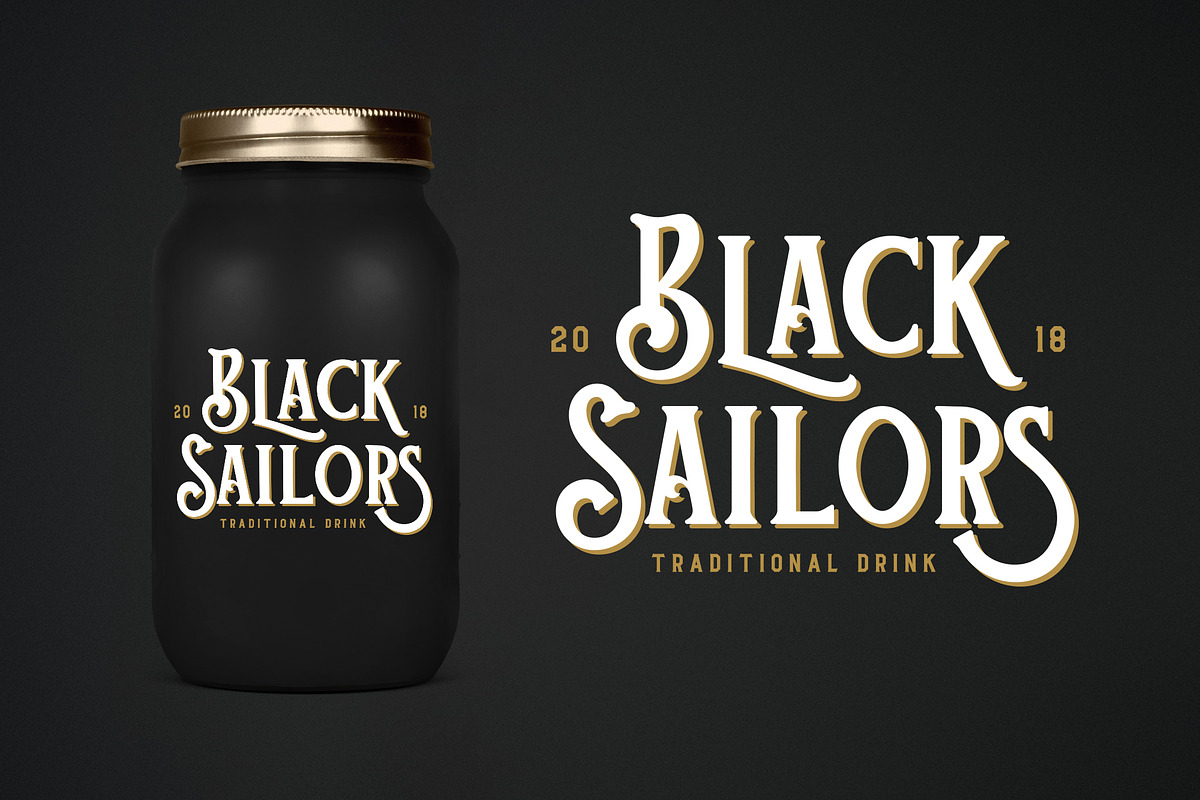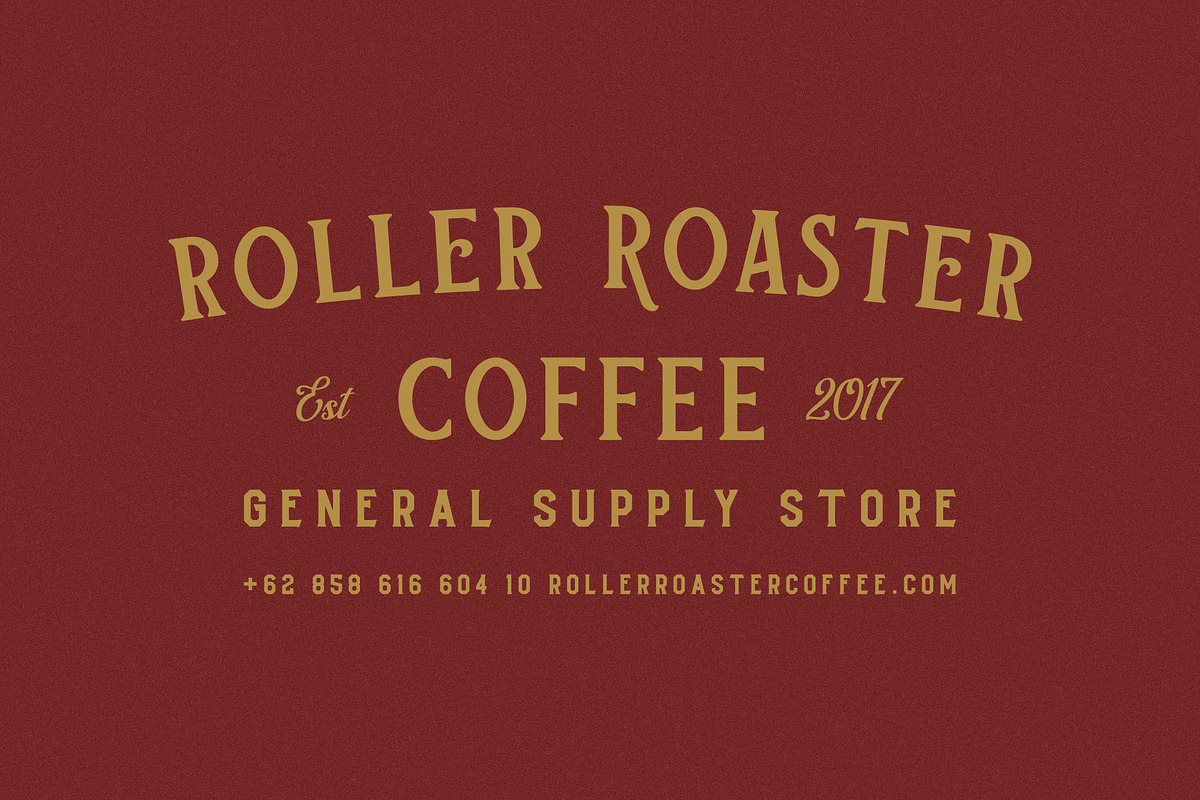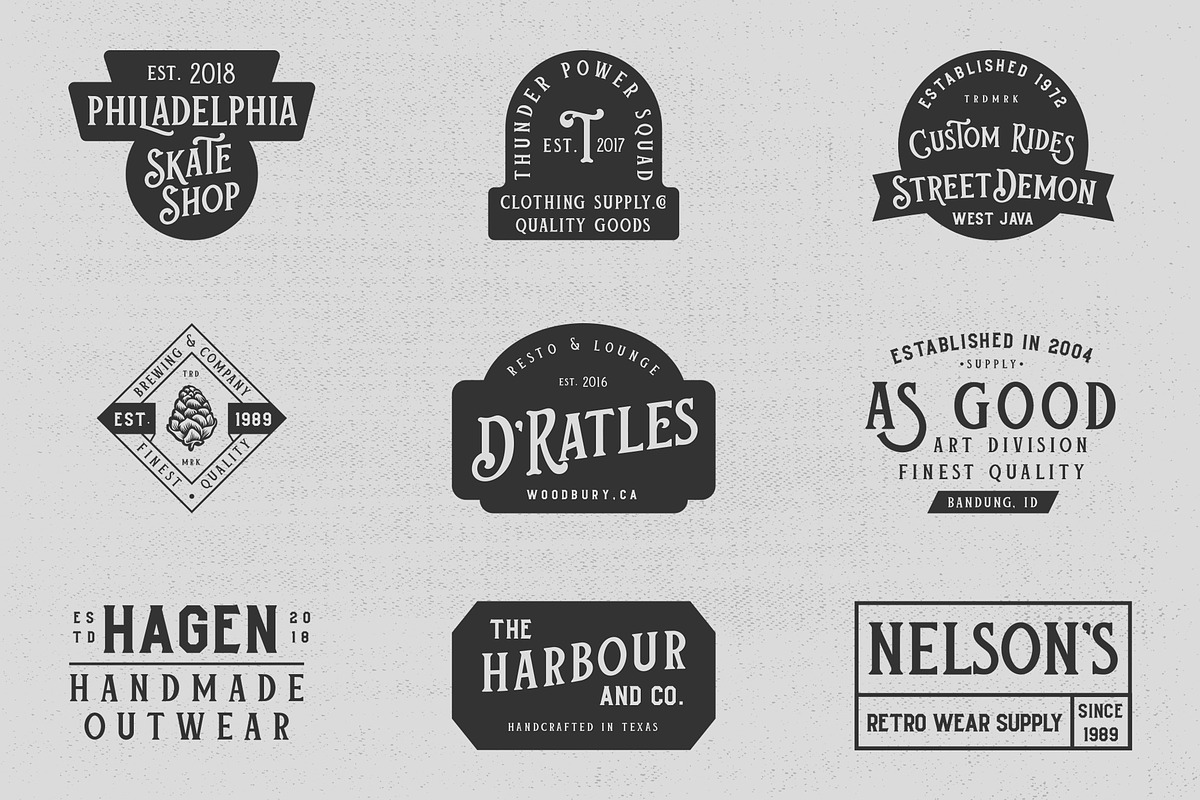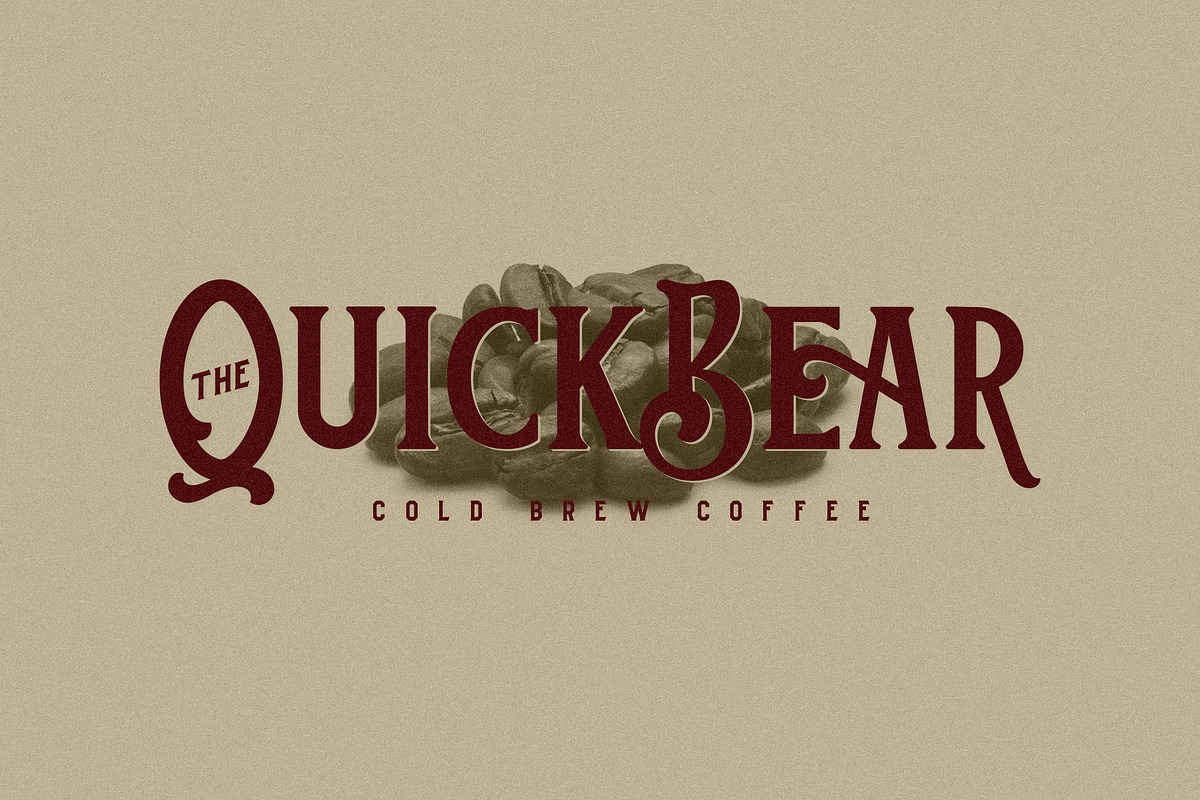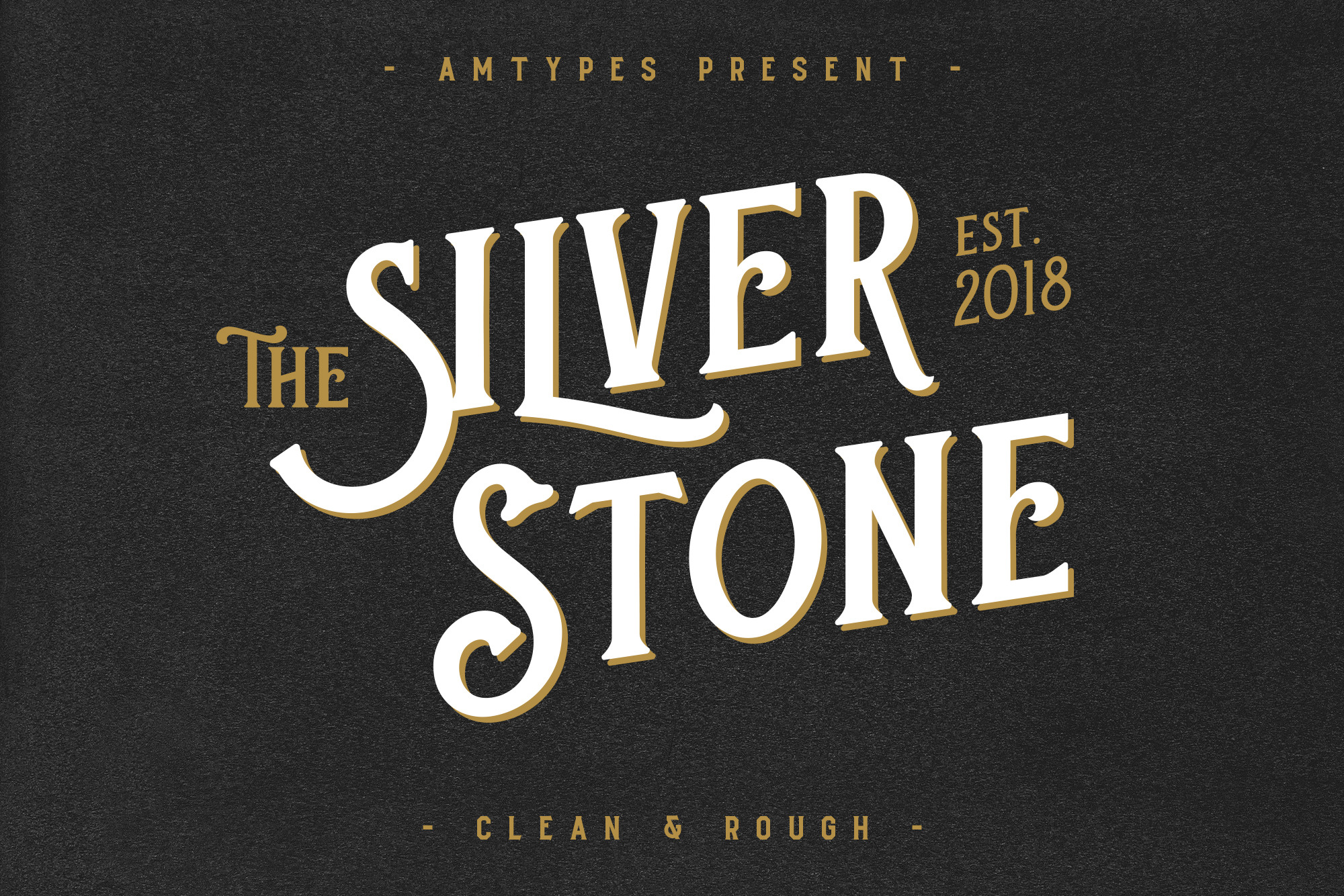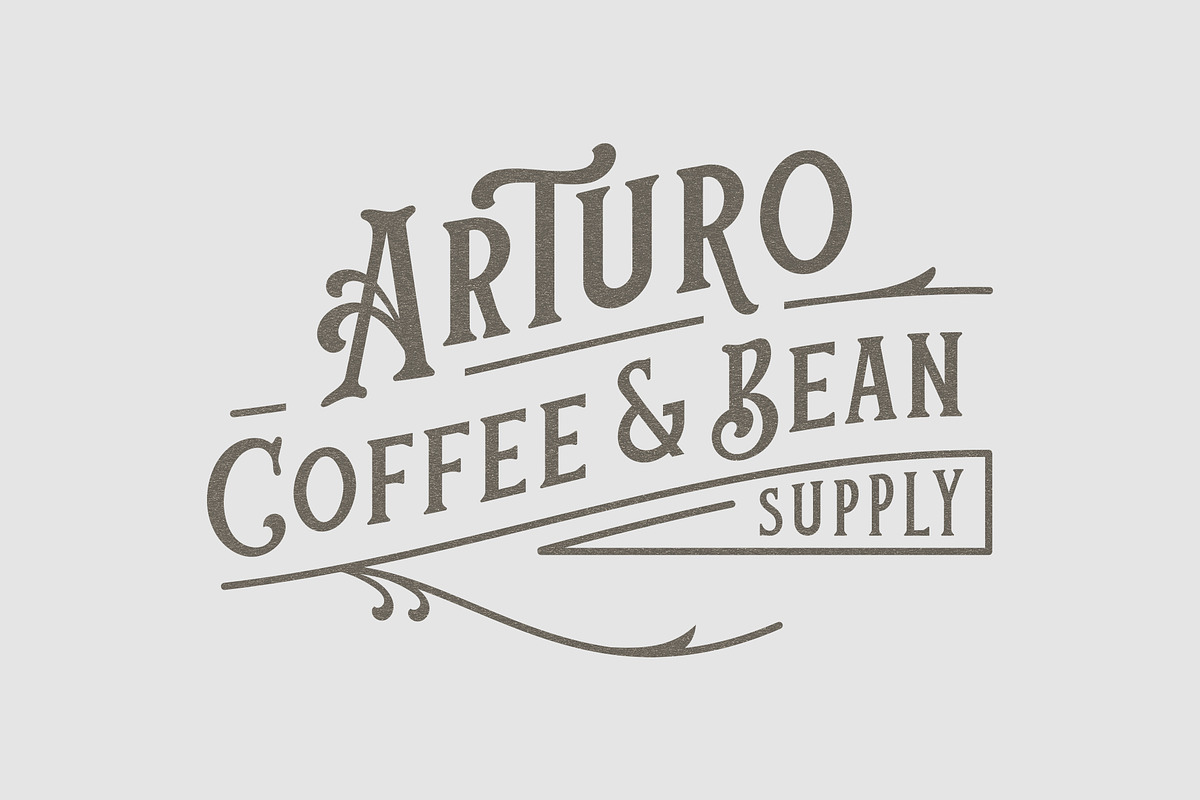
Silver Stone Font + Bonus
Silver Stone is a new vintage display and inspired by vintage packaging, vintage book cover, and vintage tins. This font is perfect for the vintage design logo, branding or product packaging.
- Standard Uppercase & Lowercase with special uppercase letters
- Number & Punctuation
- Accented Characters